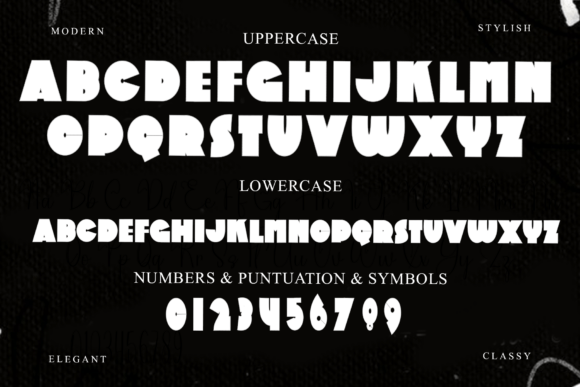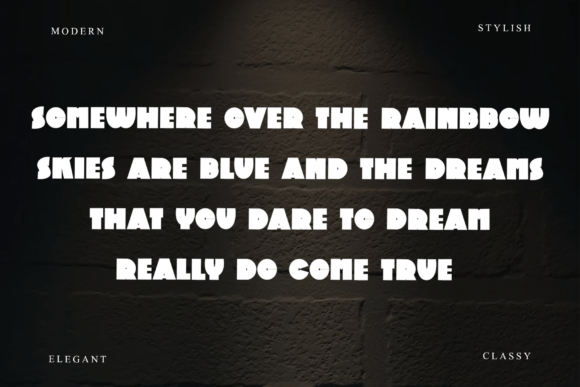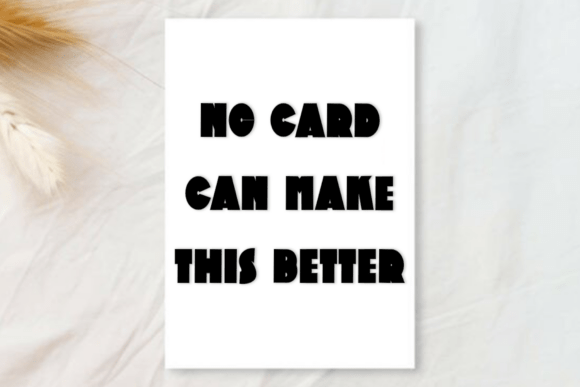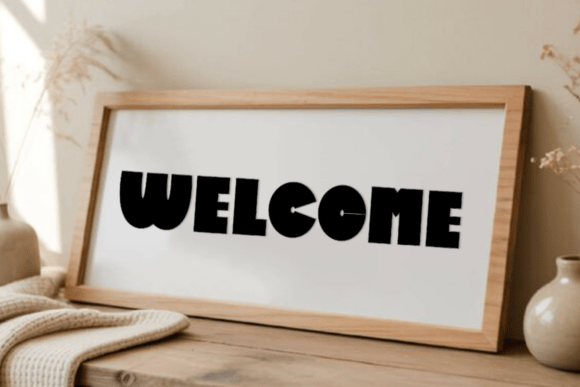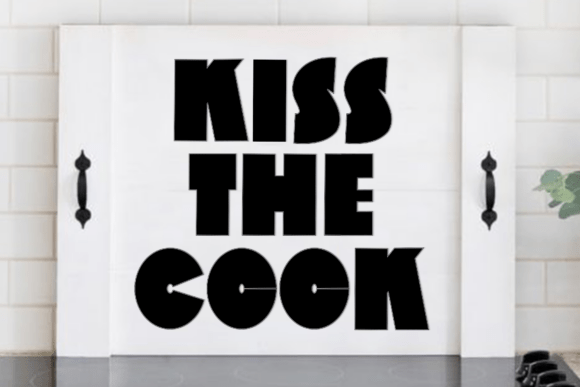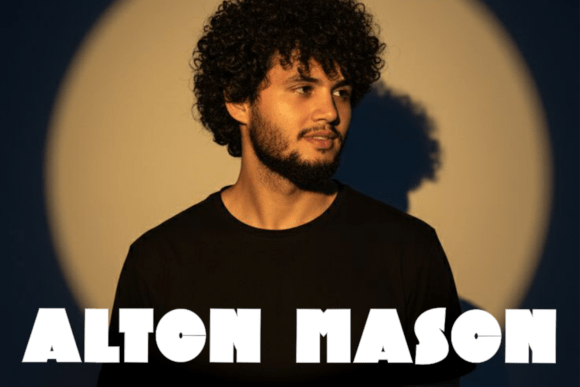
Introduction to Mama Bundle Font
Have you ever been working on a creative project, staring at a blank canvas, and suddenly, a bold, eye-catching font pops into your mind? That’s exactly what happens when you meet the Mama Bundle Font. This ultra-modern display font is engineered to dominate your designs, making it the perfect choice for designers looking to add an undeniable edge to their work.
With its ultra-thick, blocky structures and sharp geometric cutouts, Mama Bundle Font strikes an incredible balance between retro poster art and contemporary streetwear typography. Whether you’re designing a trendy t-shirt, creating a bold podcast logo, or crafting a massive event banner, this font is sure to grab instant attention. In this article, we’ll dive into the world of Mama Bundle Font and explore why it’s a valuable resource for designers.
Key Features of Mama Bundle Font
- High-quality design resource perfect for creative projects, offering a unique and feminine touch.
- Includes a variety of styles and weights, allowing for flexibility and creativity in design projects.
Honest Review: Mama Bundle Font
As a designer, I’m always on the lookout for high-quality design resources to elevate my creative projects. The Mama Bundle Font caught my eye, and I decided to give it a try.
However, I did encounter some limitations: ⚠️ The font library is relatively small compared to some other options on the market, which may limit its versatility for more complex design projects. Additionally, some of the font styles can feel a bit generic, which may not be ideal for designers looking to add a unique touch to their work.
Overall, I’d say the Mama Bundle Font is a solid choice for designers looking for a reliable, easy-to-use font option. While it may not be perfect, its high-quality design and free download make it a great resource for any creative project.
Experiment with different font sizes and colors to get the desired look. You can also combine the Mama Bundle Font with other design elements for a unique visual effect.
The Mama Bundle Font is perfect for branding, logos, and marketing materials. It’s also great for creating social media graphics, presentations, and documents.